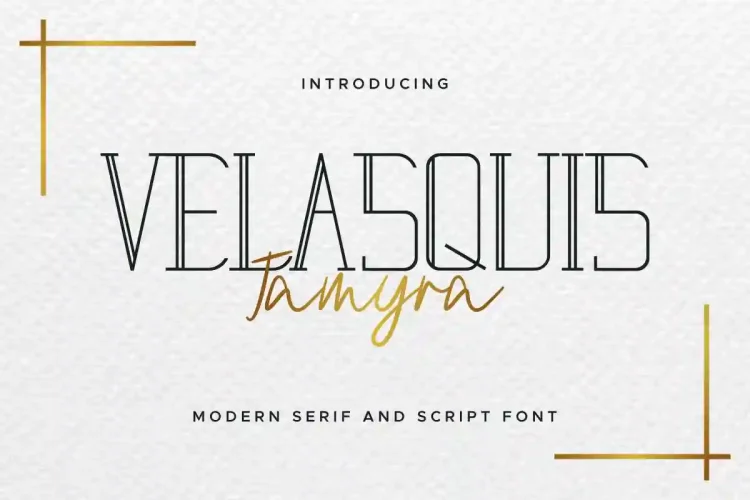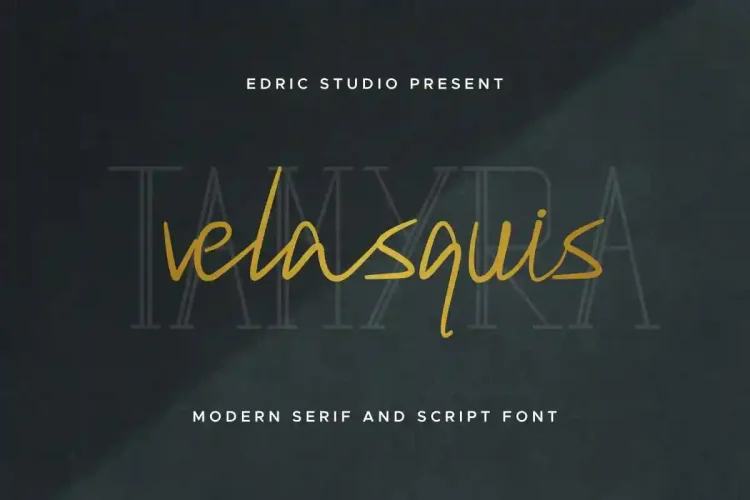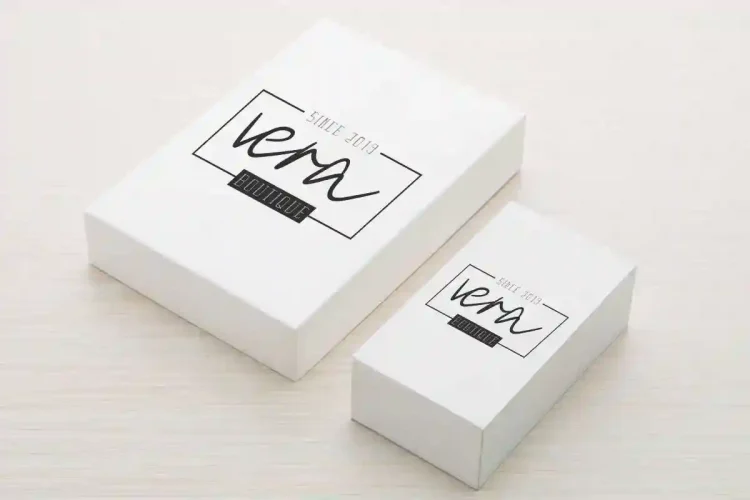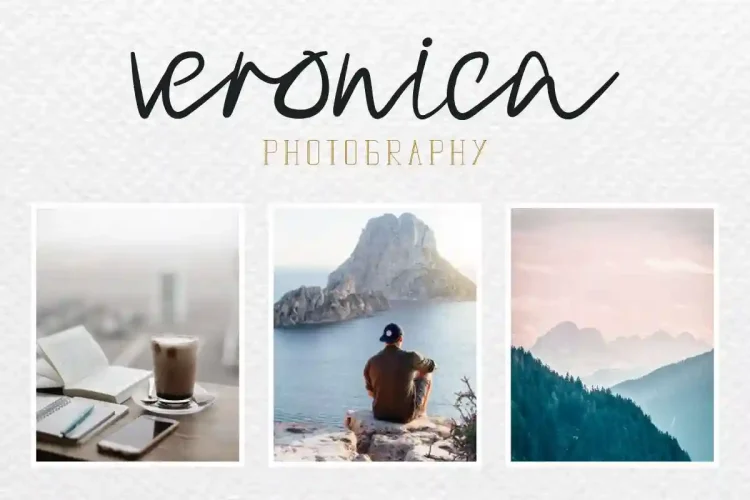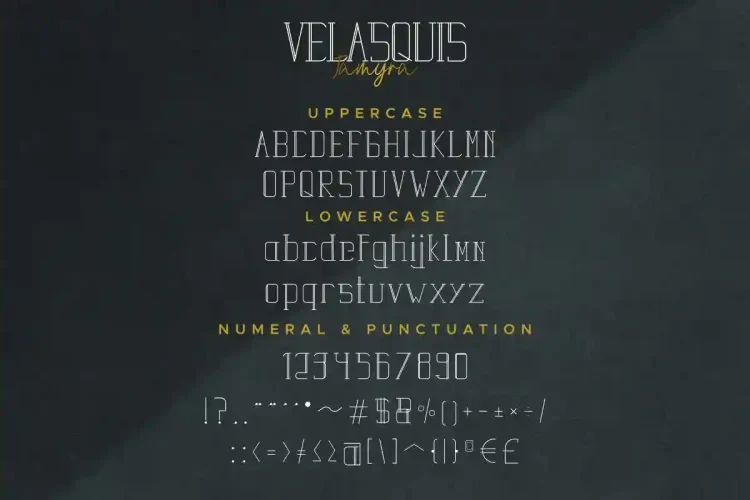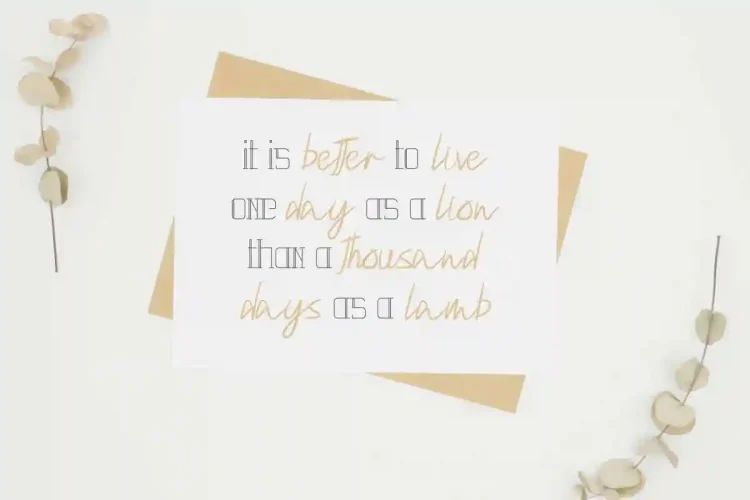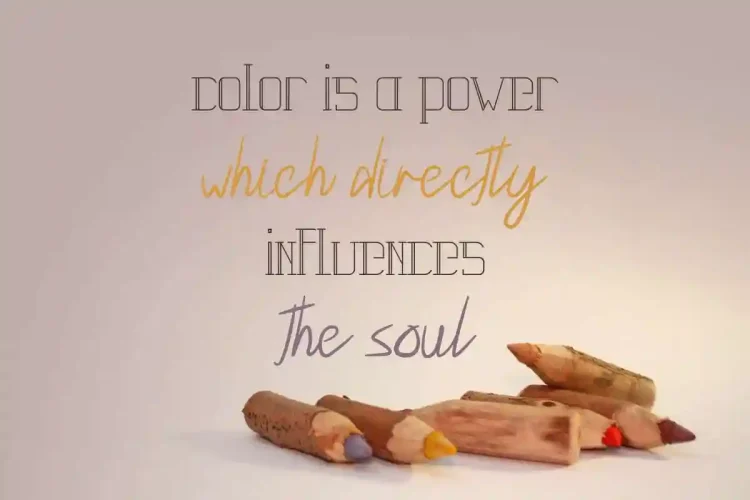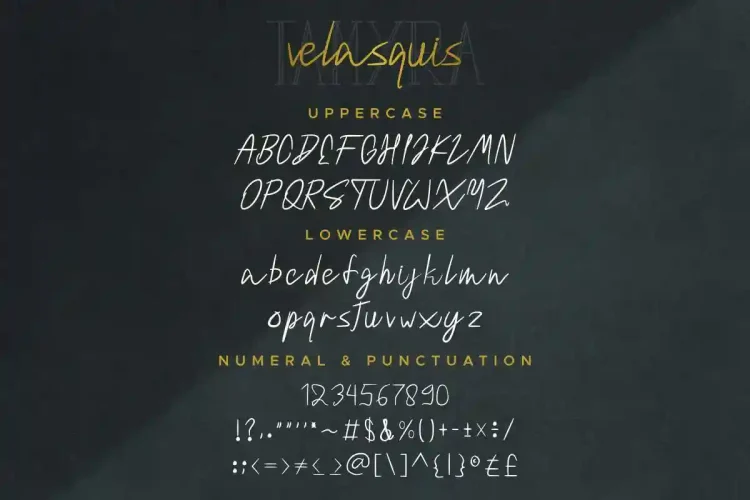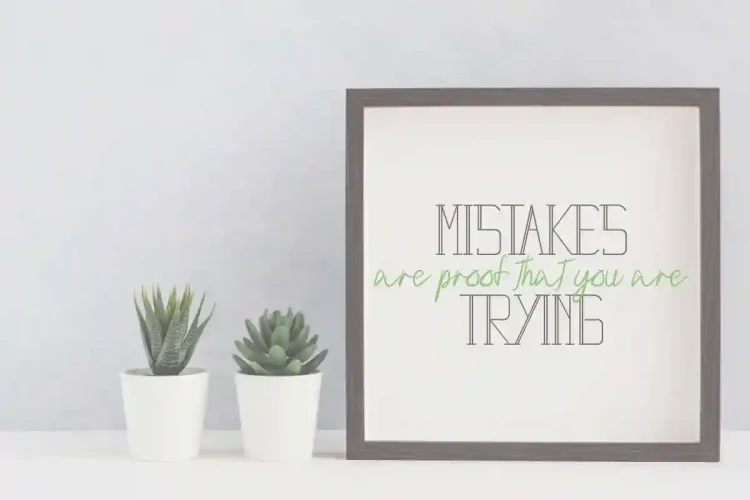
Velasquis Tamyra Font Duo
Introducing our latest font Velasquis Tamyra Font Duo
Velasquis Tamyra Font Duo is an exclusive duo typeface with unique and elegant style. The typeface has a stunning characters set, perfectly kerned and spaced. The style character of this font is elegant, stylish, sophisticated and classic brush calligraphic style. It’s exclusive you wont find any where-else, the font like Cheeks Rosy Font Duo.
Velasquis Tamyra Font Duo will be great for any projects including : branding, logo, stationery, business card, signage, flyer, brochure etc. Almost all industries will be match for this typeface: wedding, events, real estate, architect, law firm, florist, gardening, makeup artist, travel, hotel, musician etc